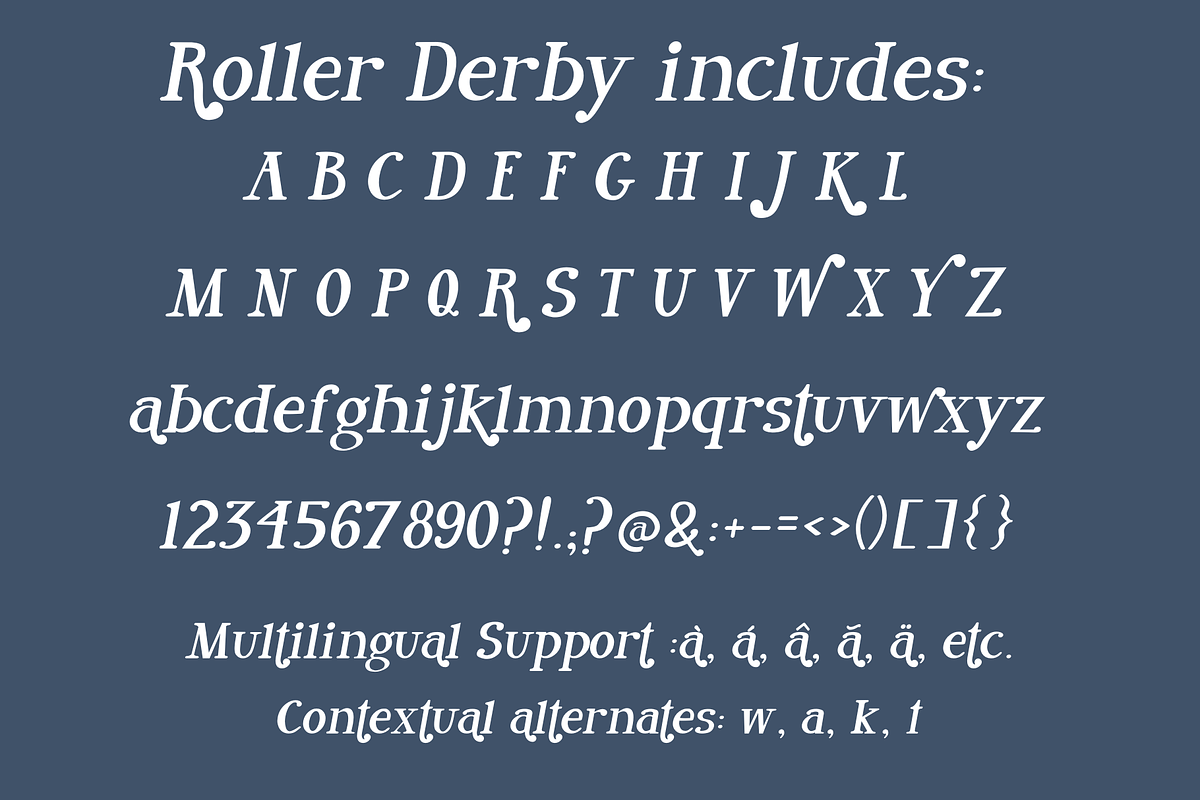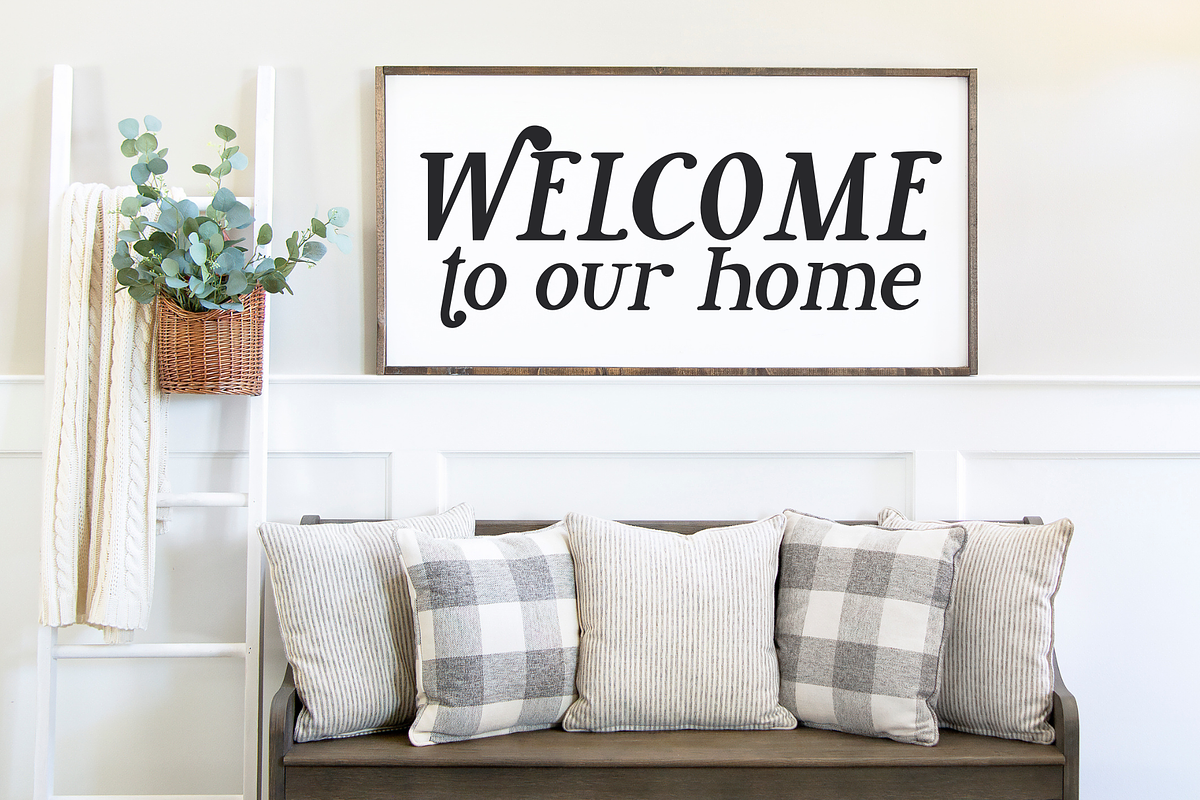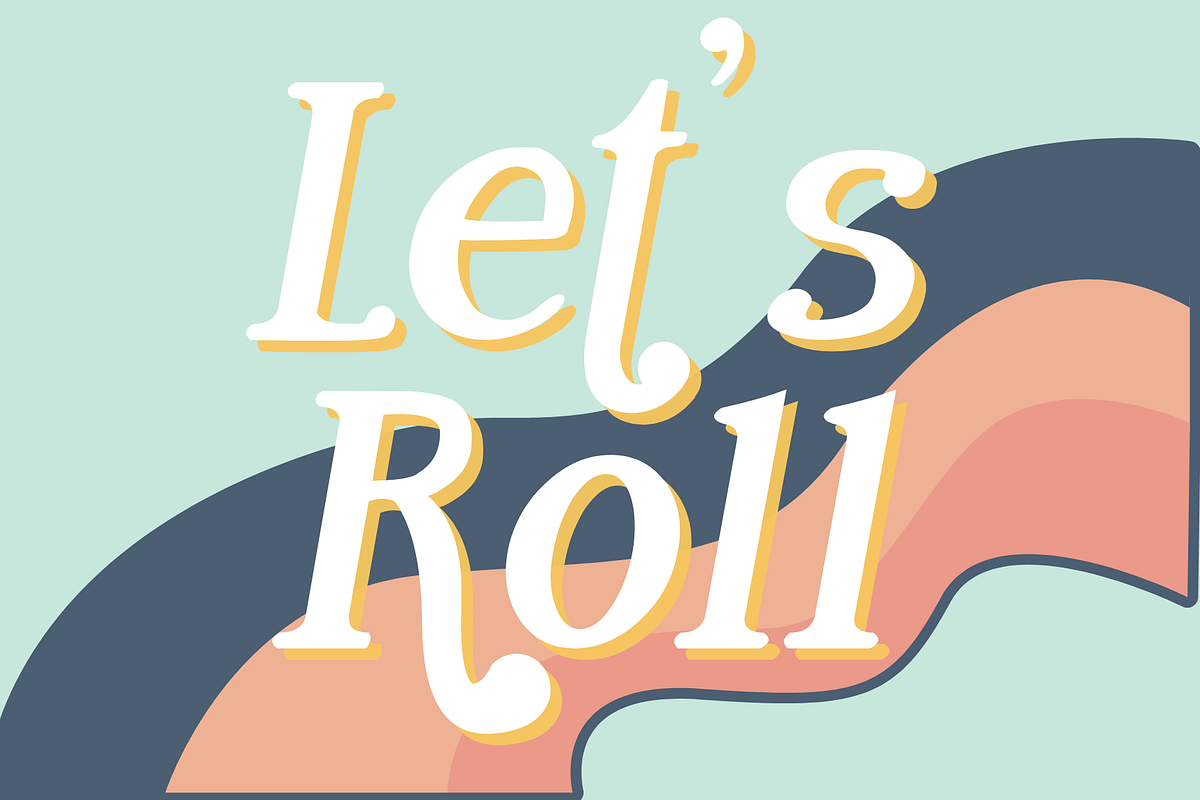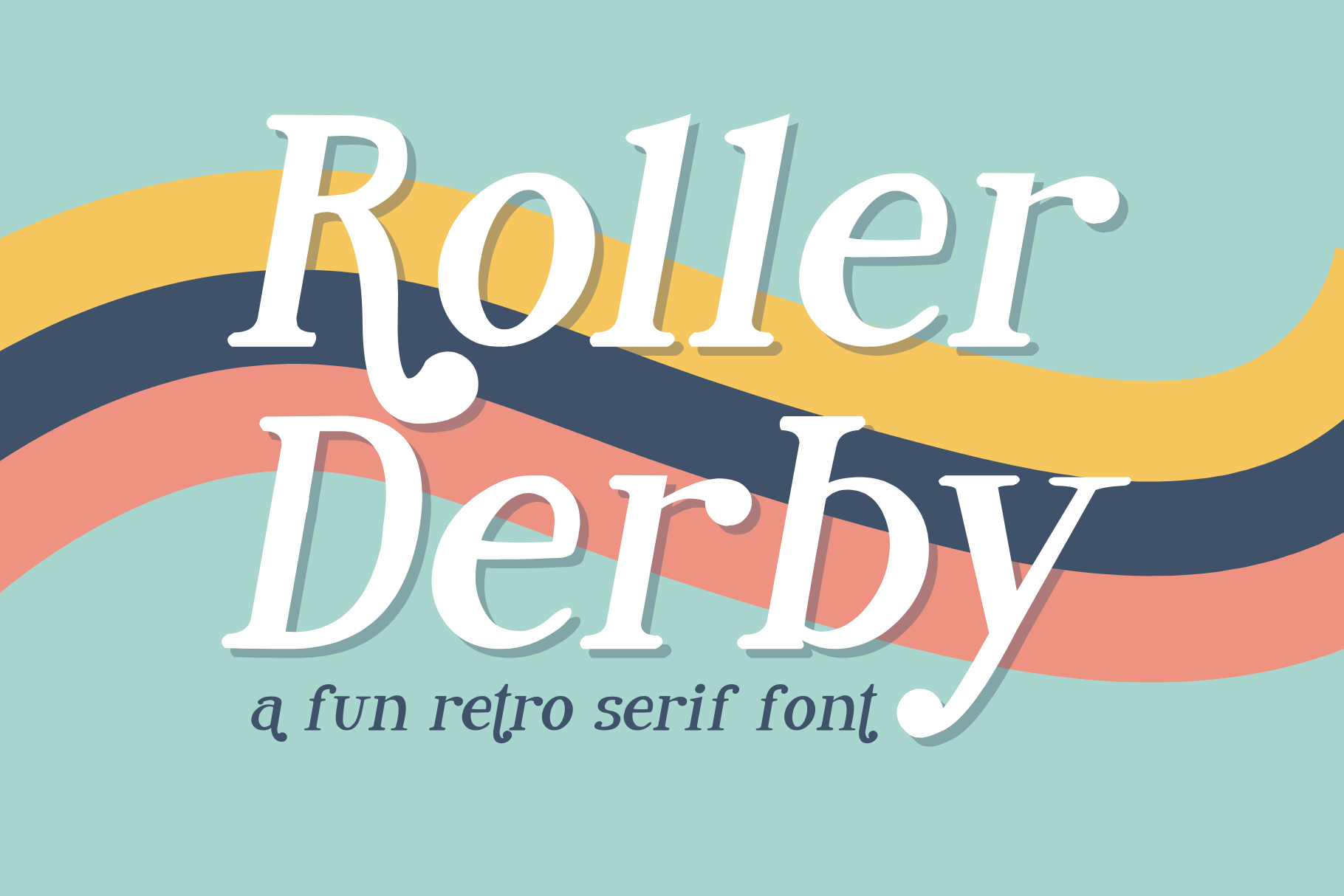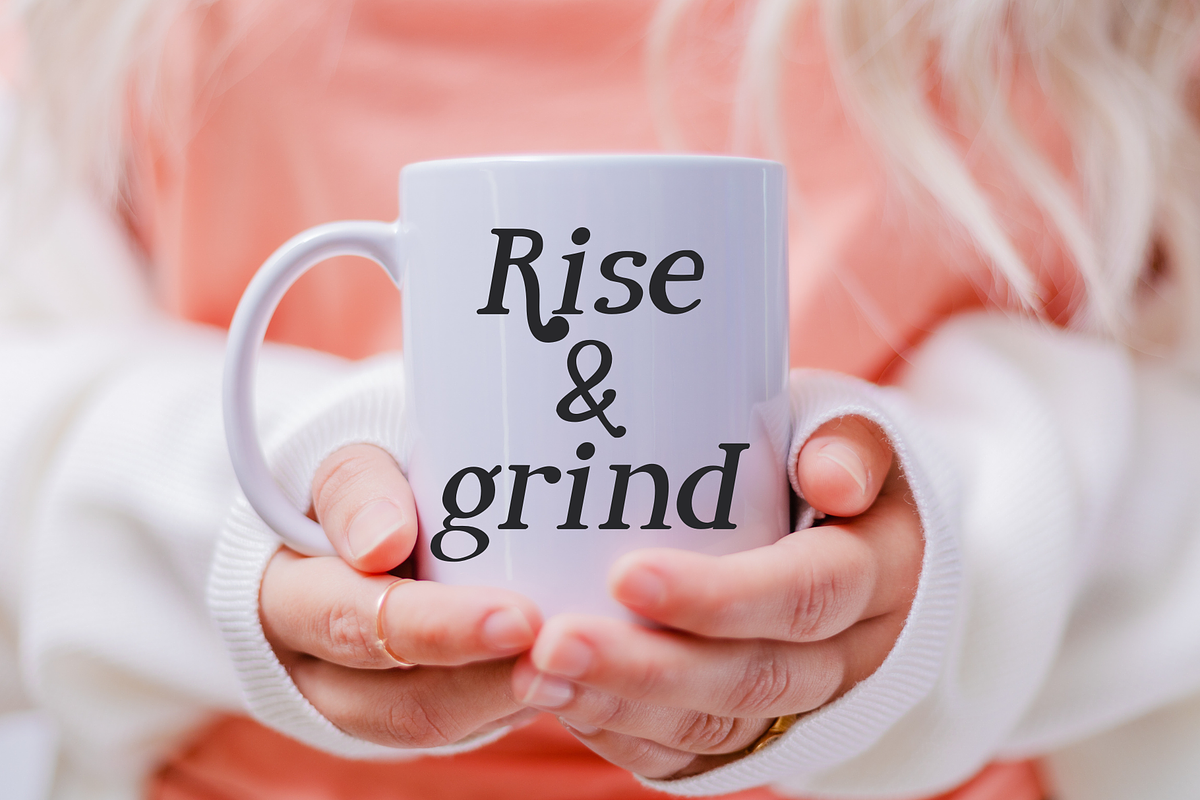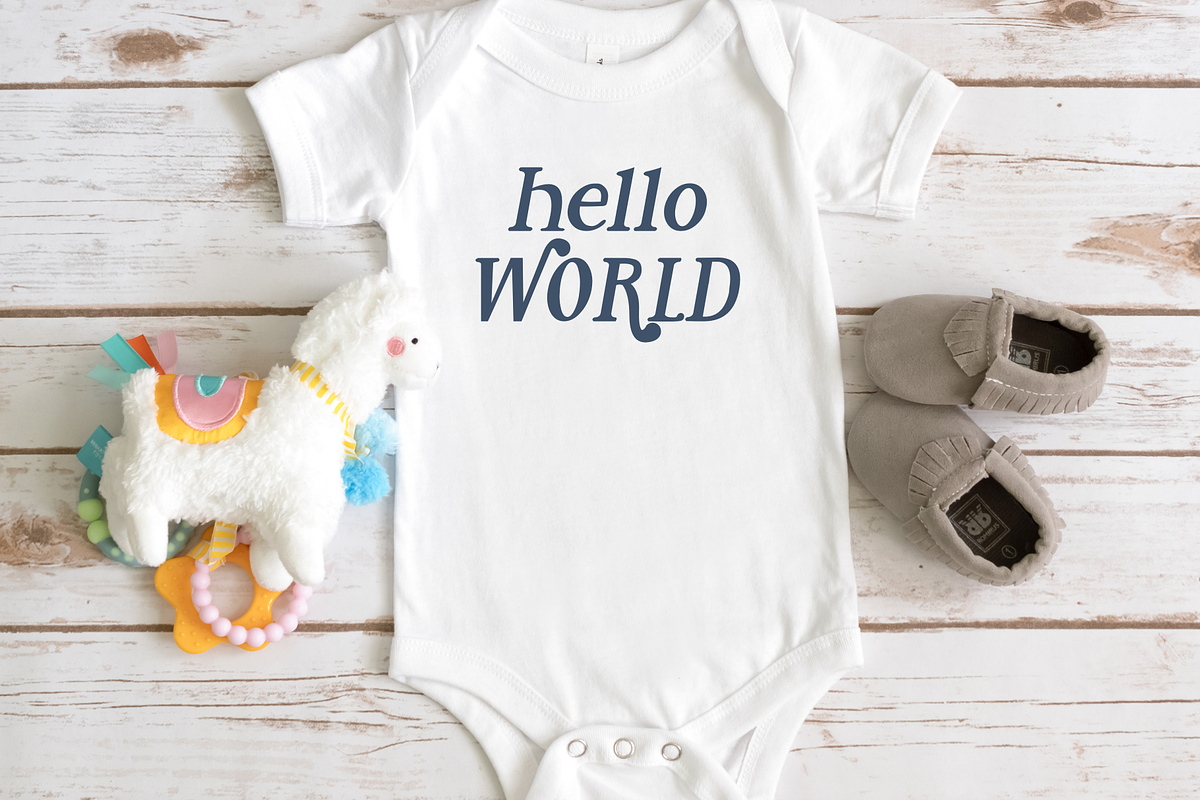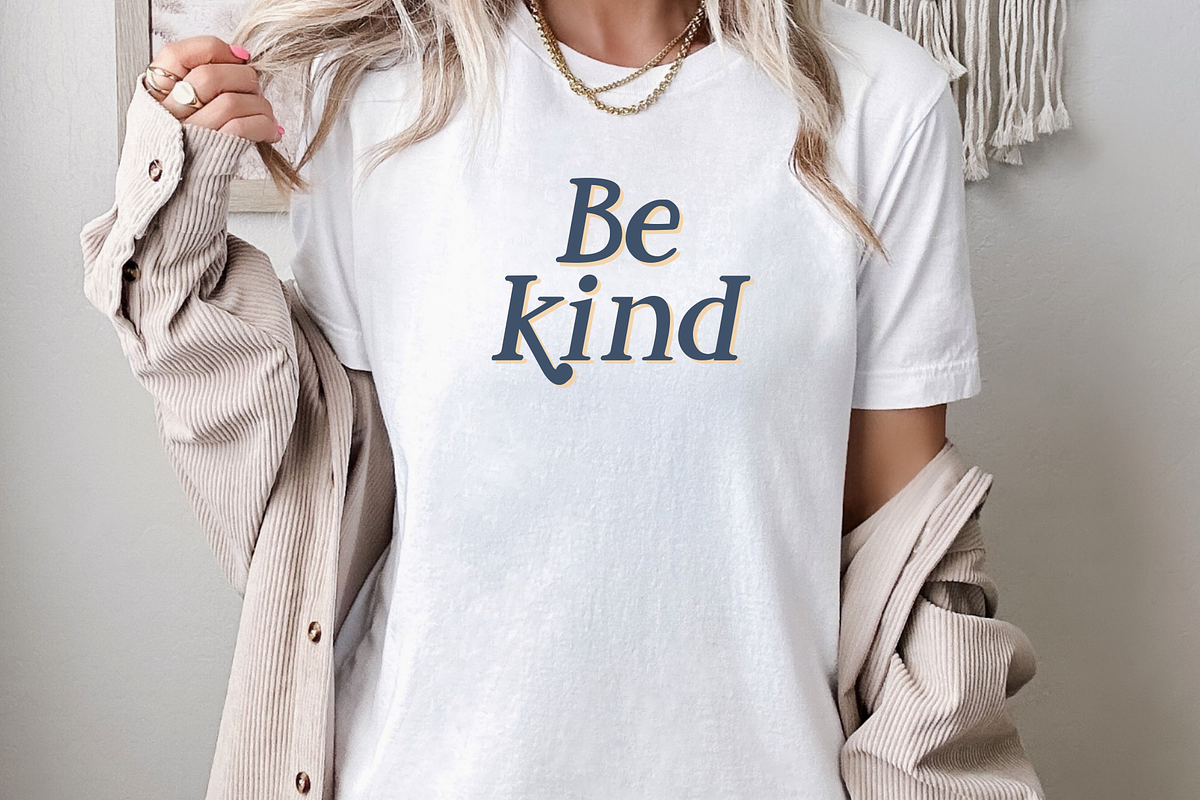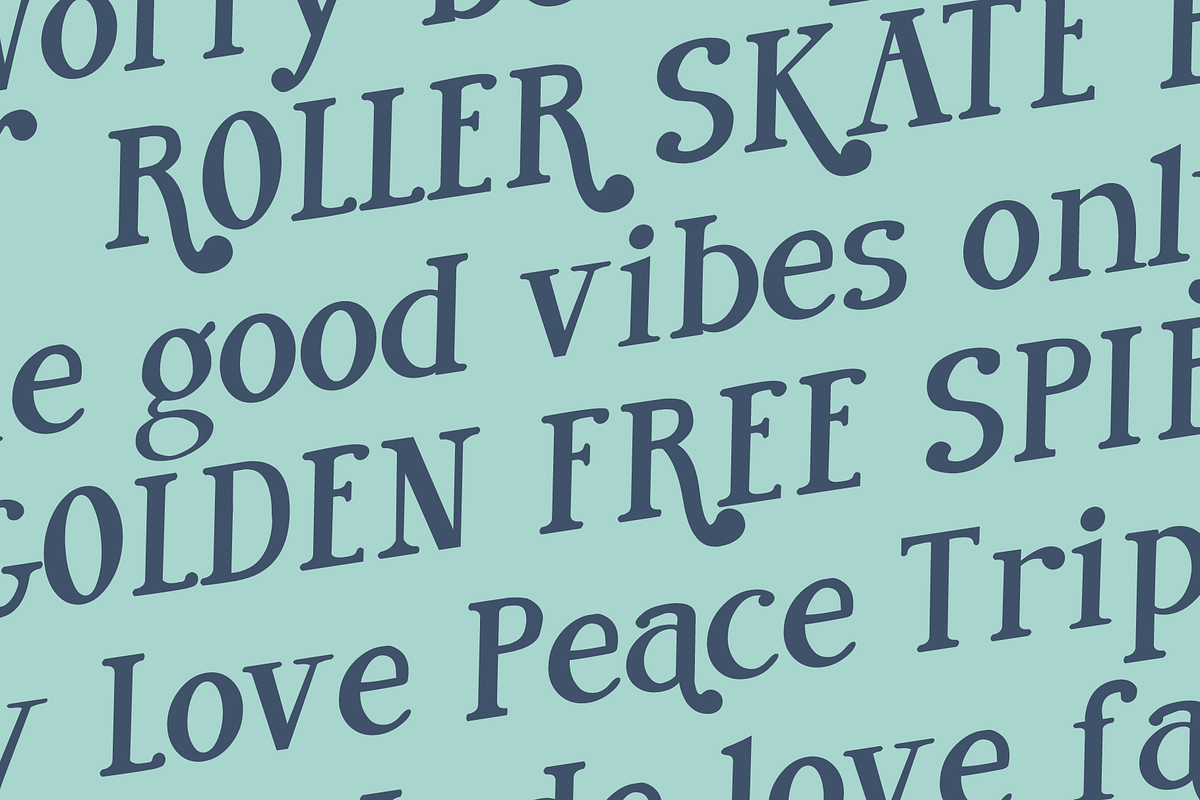
Roller Derby - Retro Serif Font
Introducing Roller Derby, a fun retro handwritten Font for Cricut and more- a charming and cute addition to your creative projects! Our handwriting font is compatible with Cricut SVGs, Goodnotes, Procreate, and many other programs. With its playful and bold serif handwriting style, it adds a touch of whimsy and personality to any project. Whether you're crafting cards, scrapbooking, or designing SVG files, this font will bring your creations to life. Get ready to impress with our amazing Cricut font collection and unlock endless possibilities for your artistic endeavors!